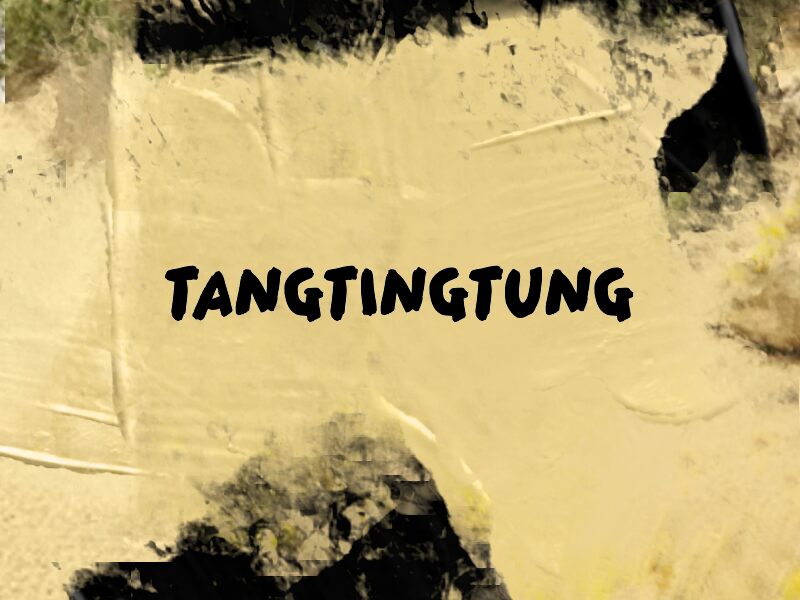
Tangtingtung font by wepfont.com is a lively and modern brush lettering free font released for personal use. Blending an informal, expressive, artistic style, and dynamic design in its character crafting, the sans serif font brings a completely unique touch to your project. It has an overall handwritten and personal feel with an asynchronous letter design making it different from fonts in the similar categories.
The overly casual character outline of Tangtingtung makes it perfect for informal typography for books, magazines, fashion, promotional posters, or even brand designs. Express your projects potentially even further with this outstanding typeface in website headings, social media posts, personal or travel blogs, poster headers, print designs, and much more.
Tangtingtung is a captivating and versatile free font that enhances your design projects with its unique character and style. This font is perfect for a wide range of applications, from branding to web design, ensuring that your work stands out with a touch of elegance.